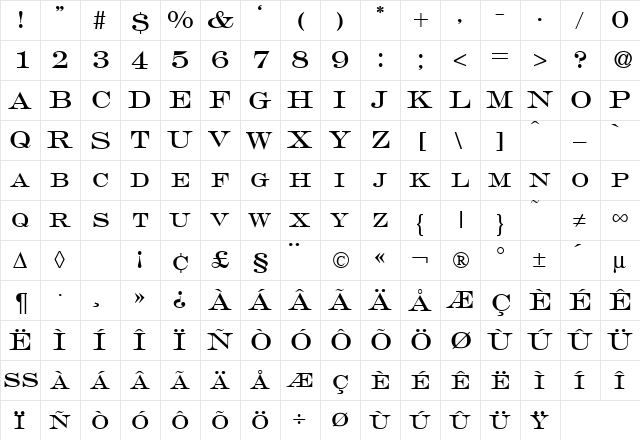
GravureRoman DB Regular
Design Context for GravureRoman DB Typeface
GravureRoman DB takes a measured approach to typography — its balanced proportions and neutral character make it a reliable workhorse for both digital and print work.